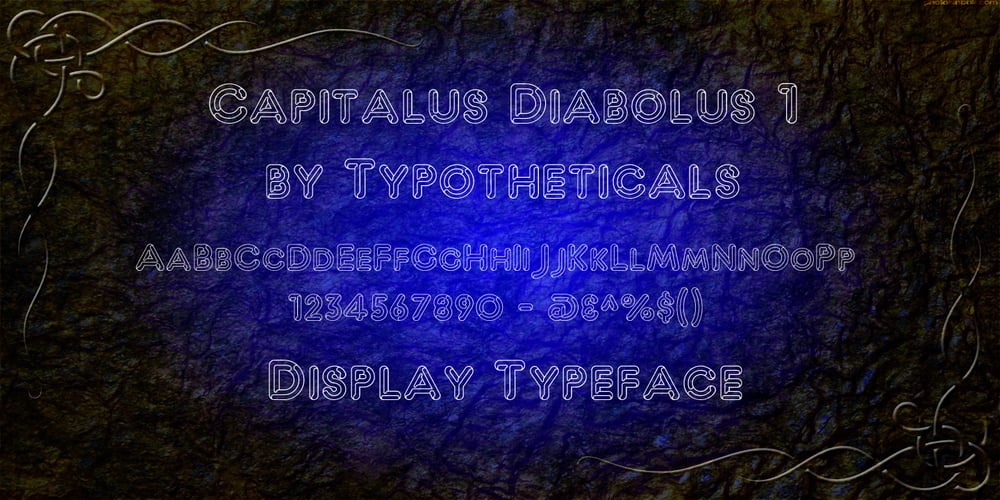
Capitalus Diabolus
Capitalus Diabolus font
Capitalus Diabolus Font Family was designed by Graham Meade and published by Typotheticals. Capitalus Diabolus contains 15 styles and family package options. Capitalus Diabolus is based quite loosely upon an old typeface called Lucifer No. 1. All character shapes were created using eyeball technology, meaning I took no measurements, nor tracing from the poor scans that were available and depended upon a visual guess on the dimensions and shapes.. This version only includes the capitals. Capitalus Diabolus 3 and 4 are just versions that have slightly thicker linework